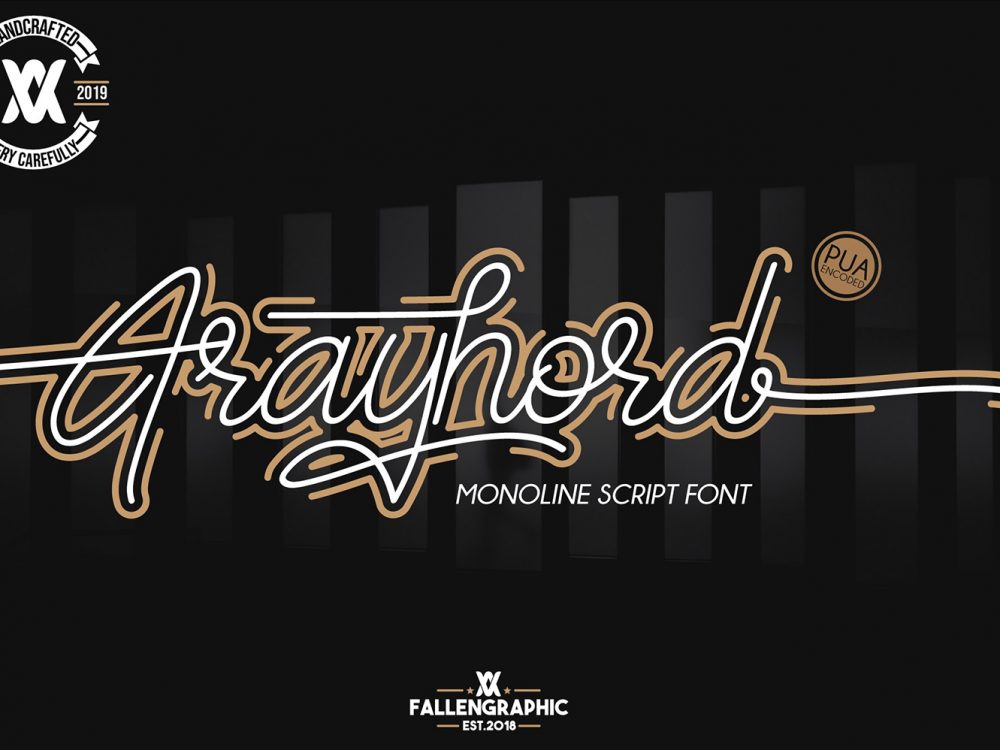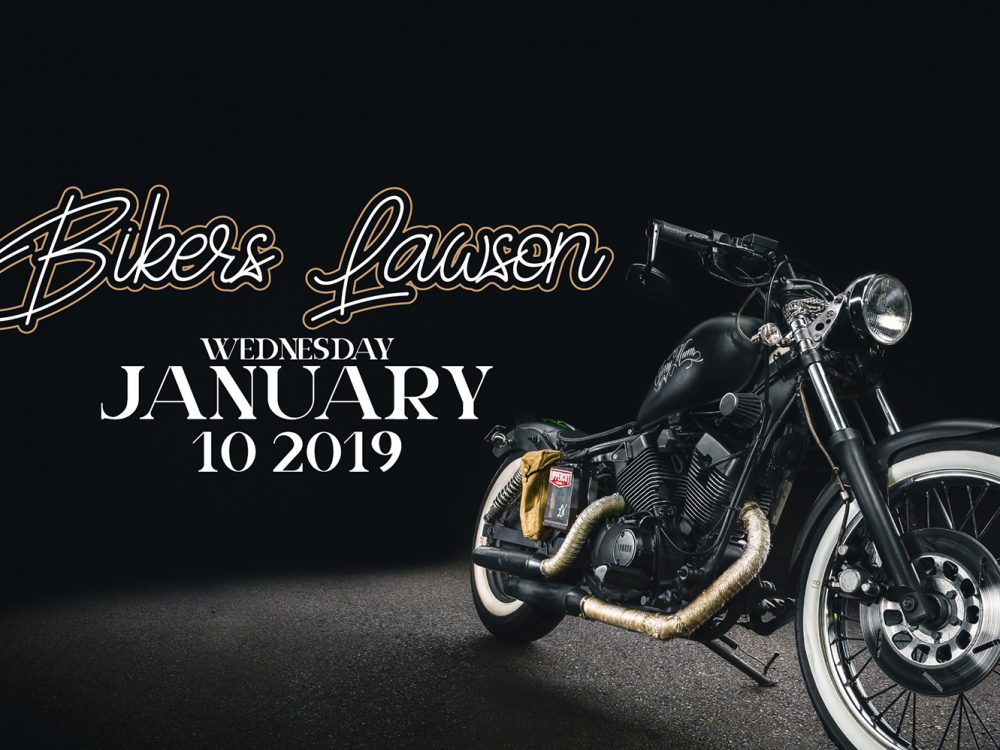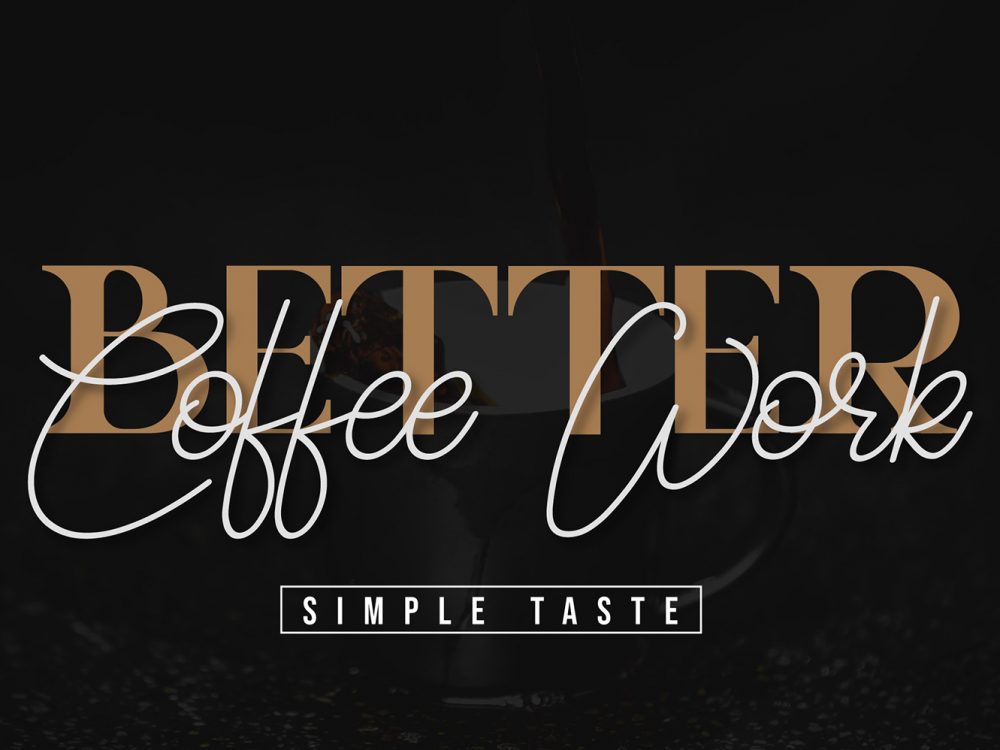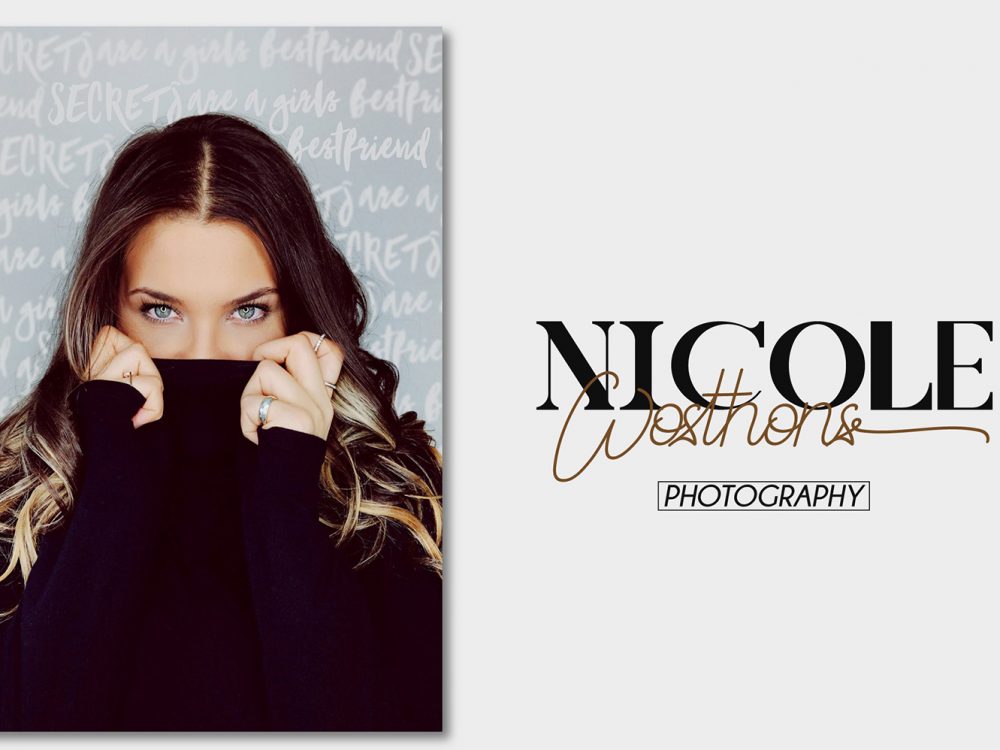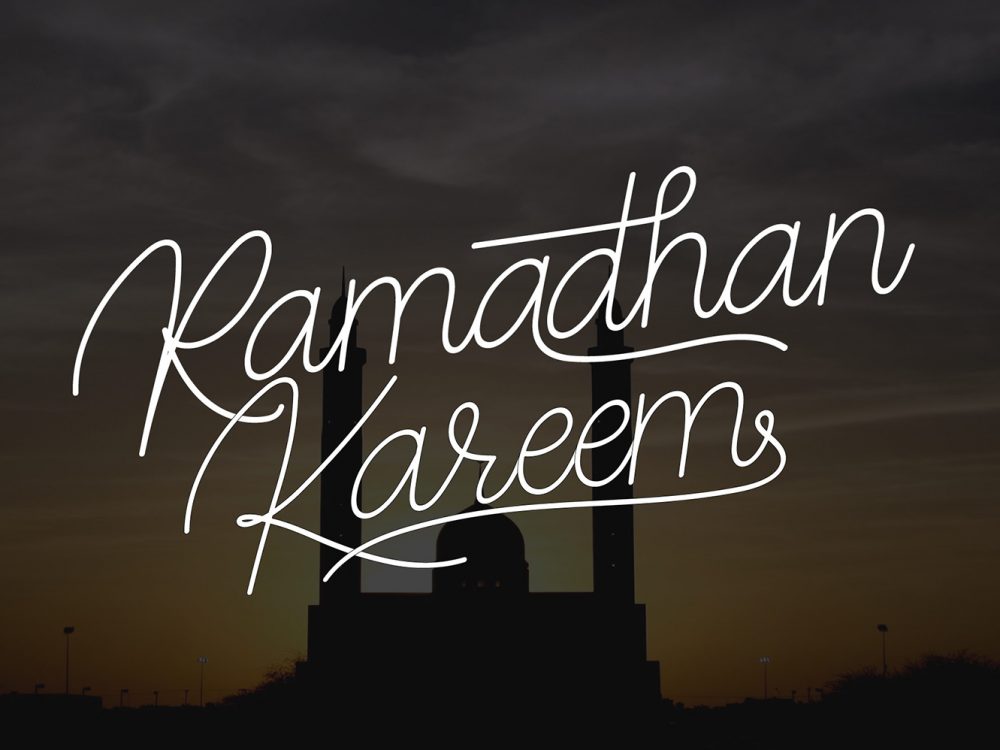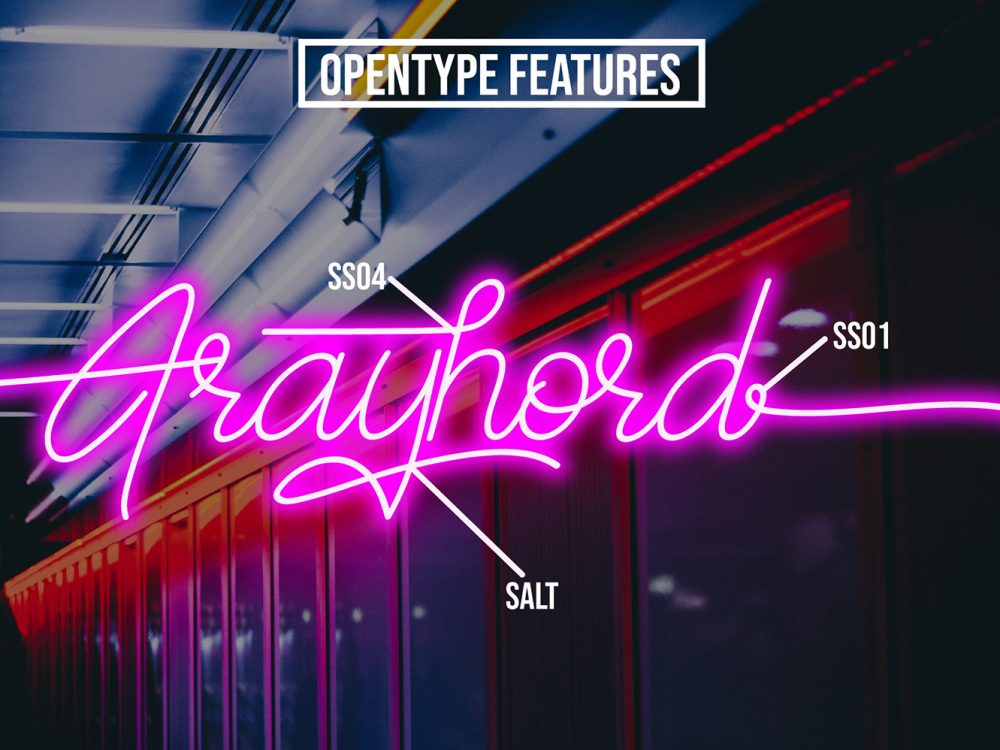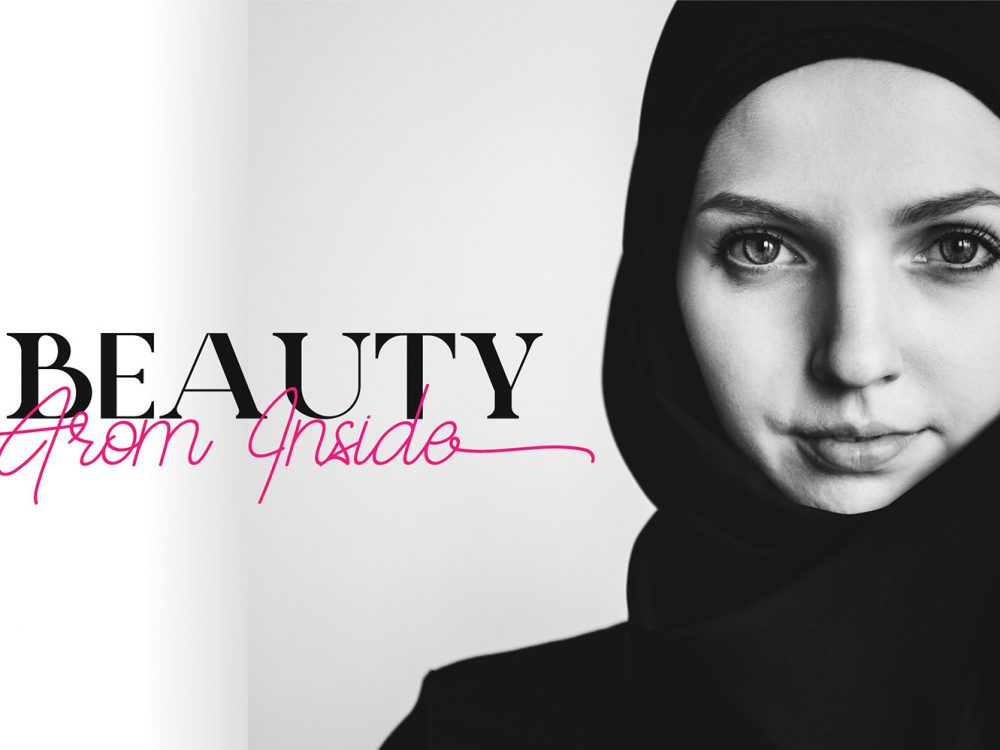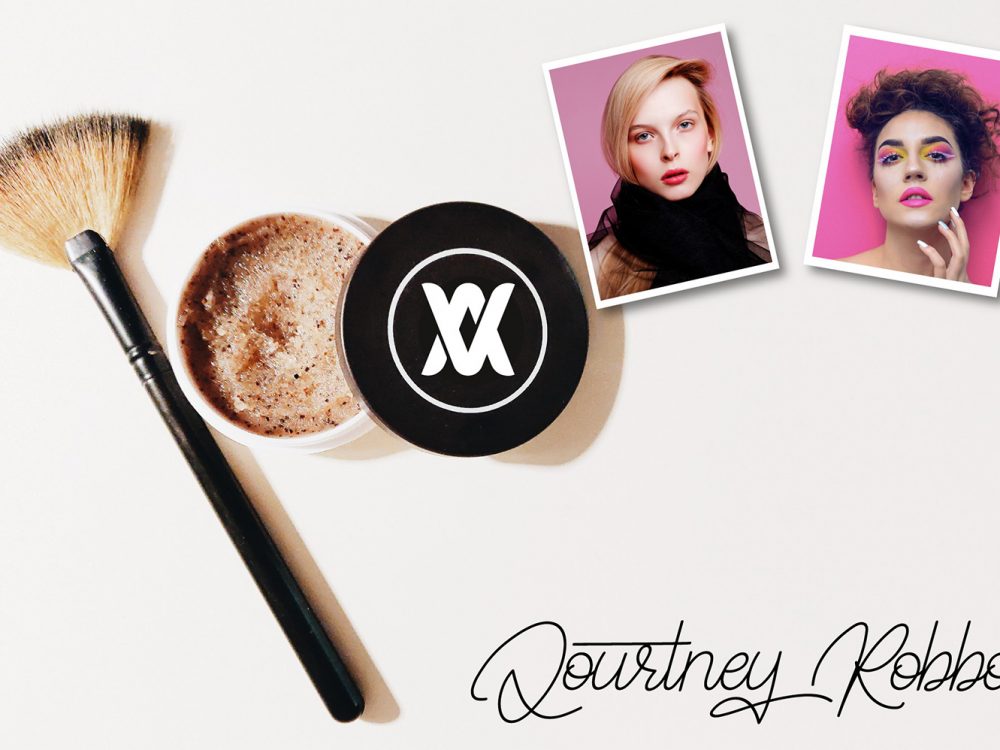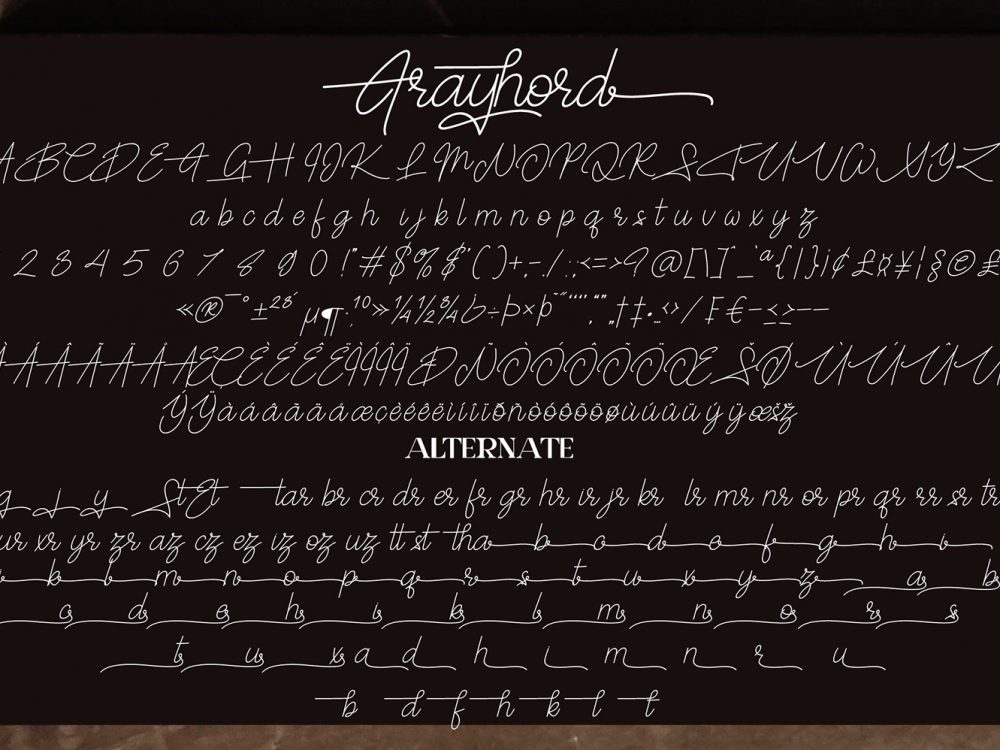
Frayhord Signature Font
If you are looking for an interesting modern scripting font for your design projects then Frayhord Signature Font is perfect for you. Use this font to create branding, logos, poster designs, postcards, flyers, invitations, prints, and more. If you want to use it for commercial work please buy the full version.